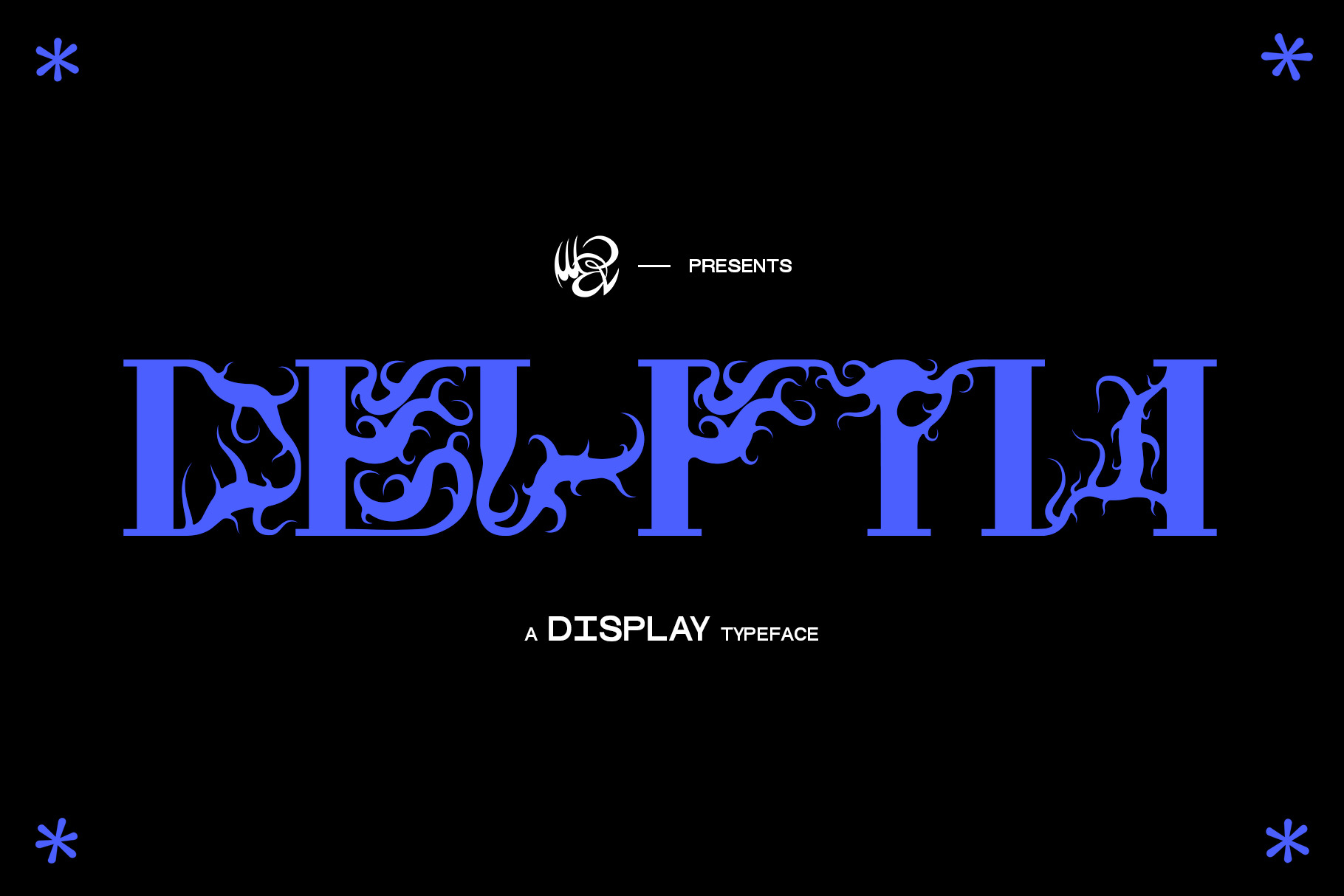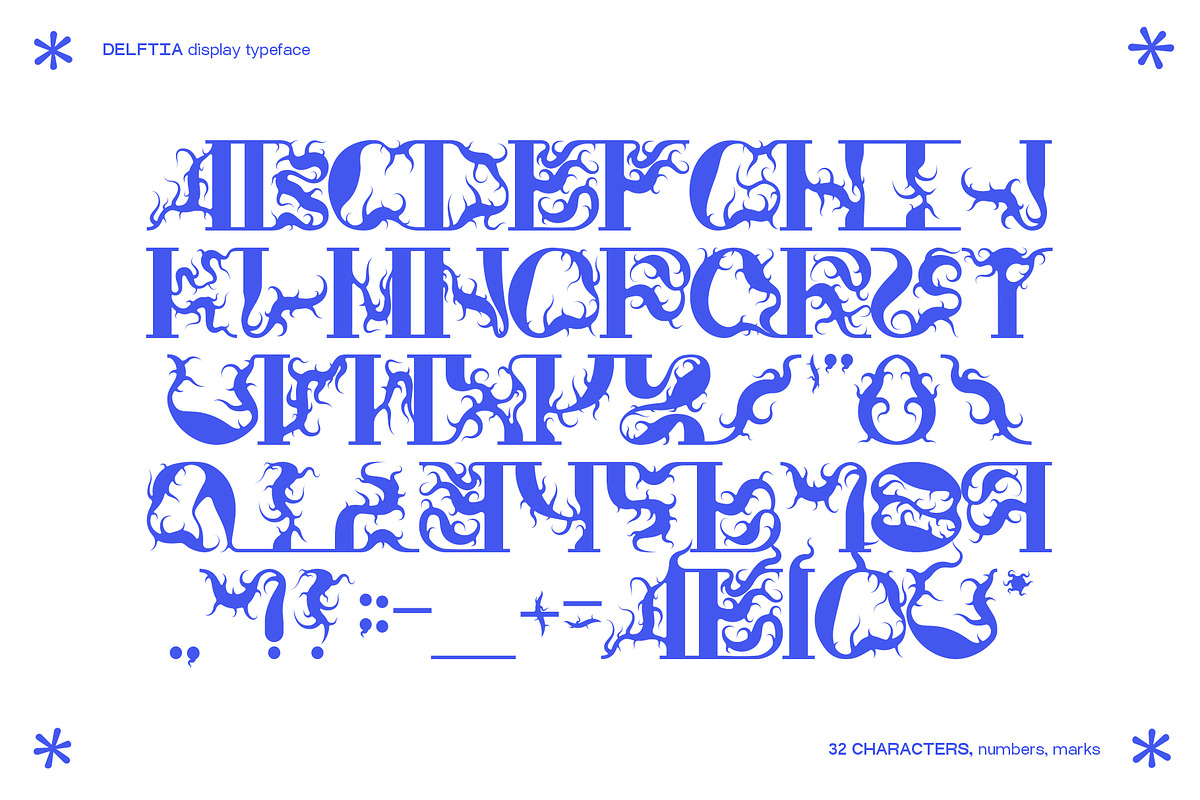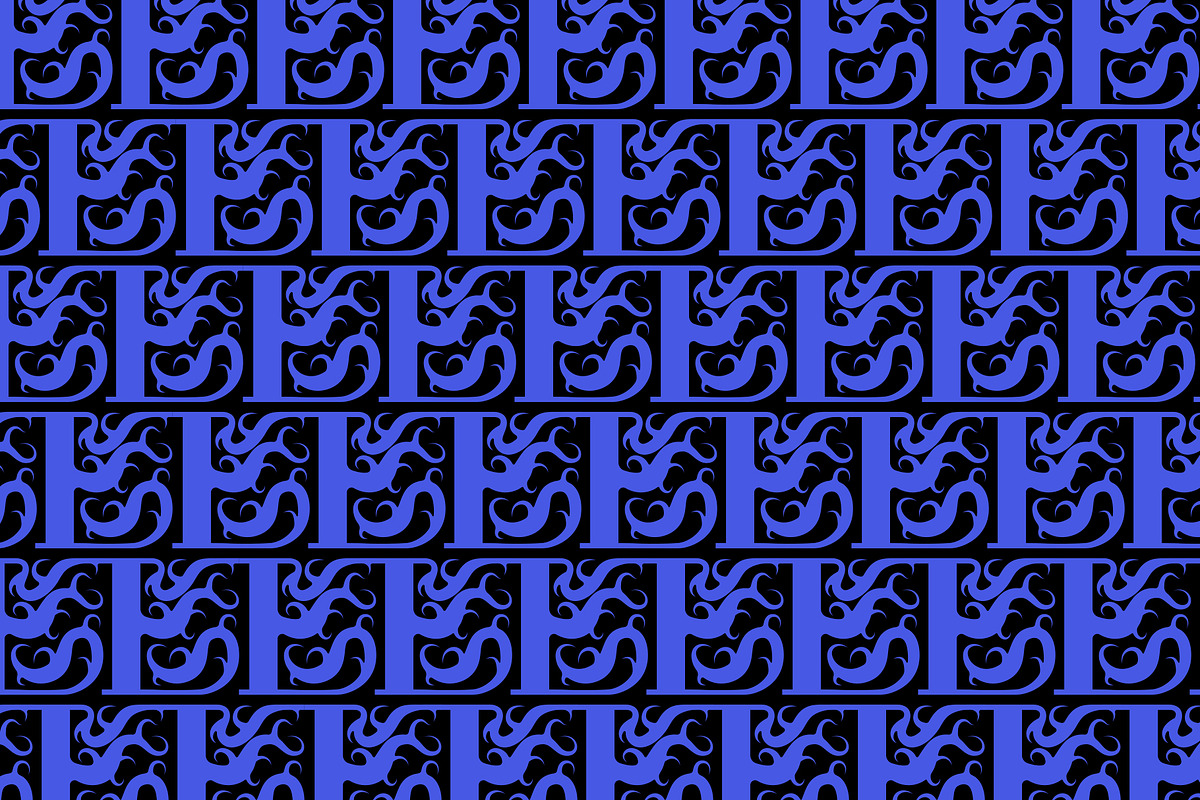
DELFTIA Display Typeface
"Delftia" is a new unique display typeface It is heavily inspired by modern society, a virus, slowly corrupting and slowly eating alive what is left of good. The font is full of all the letters and has also accents, numbers and most punctual marks. Its look is very unique and can be related also to nature, to bacteria, or to trees characteristics, it can be used to create big and beautiful headlines, album covers, posters, logos, and much more... The font has serif details and also is monospaced except for the "i" alternative. For any question ask me directly on Instagram at @marcellodellapuppa